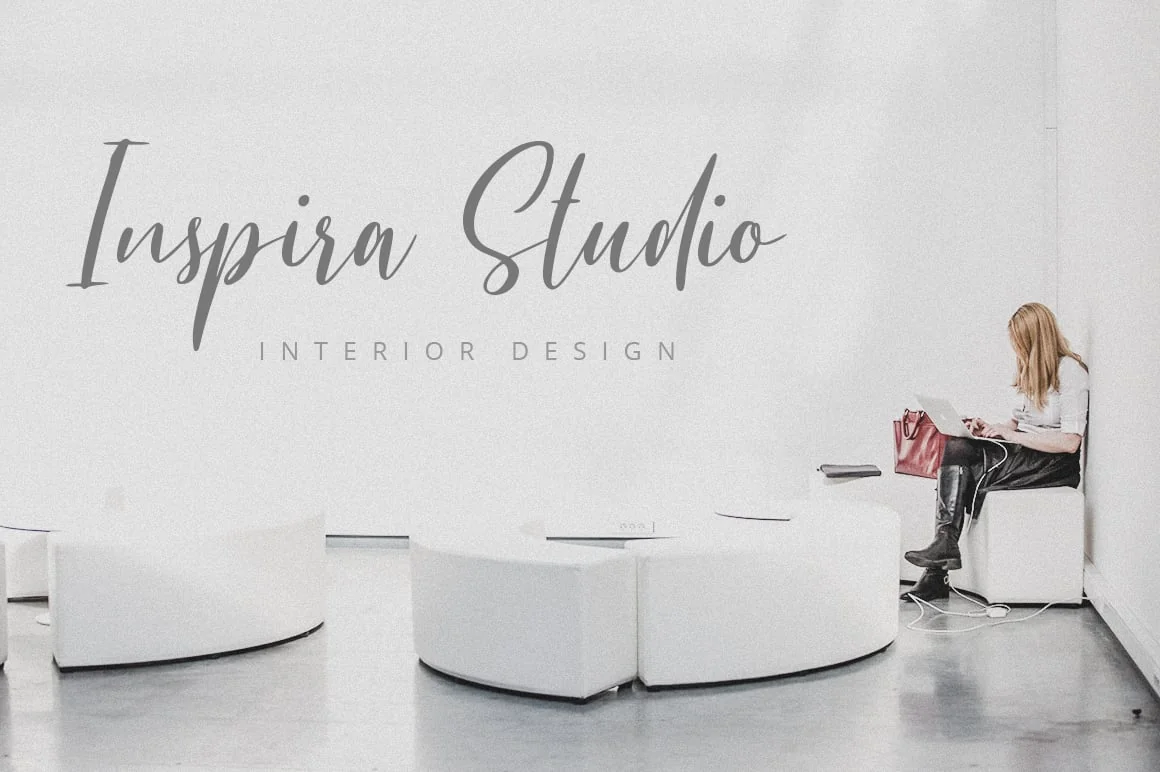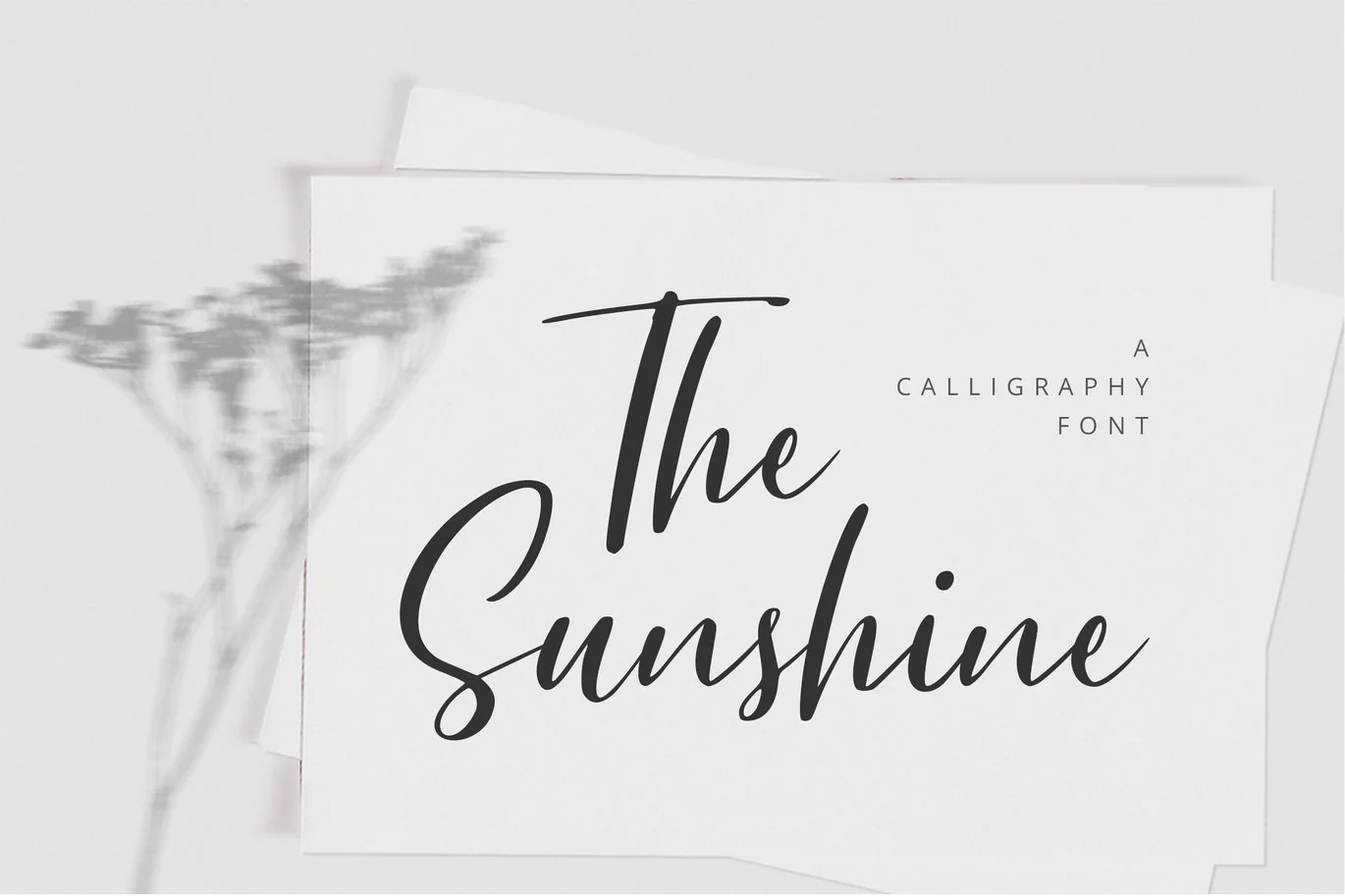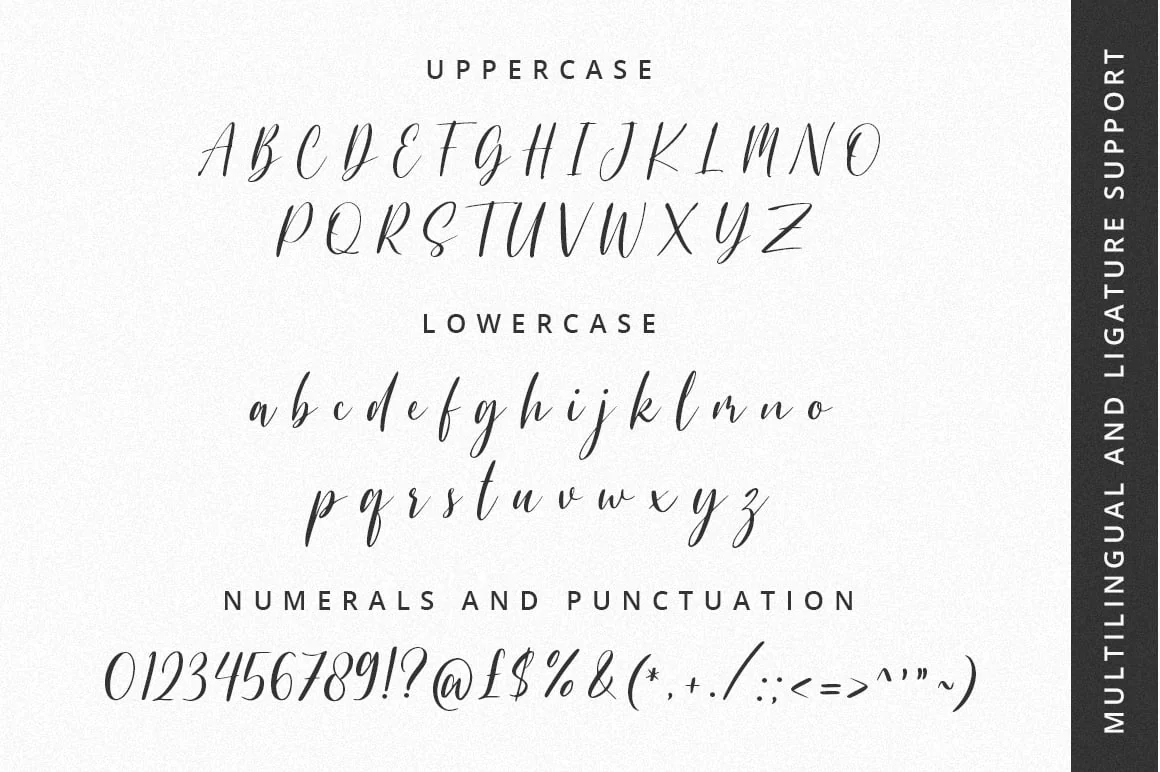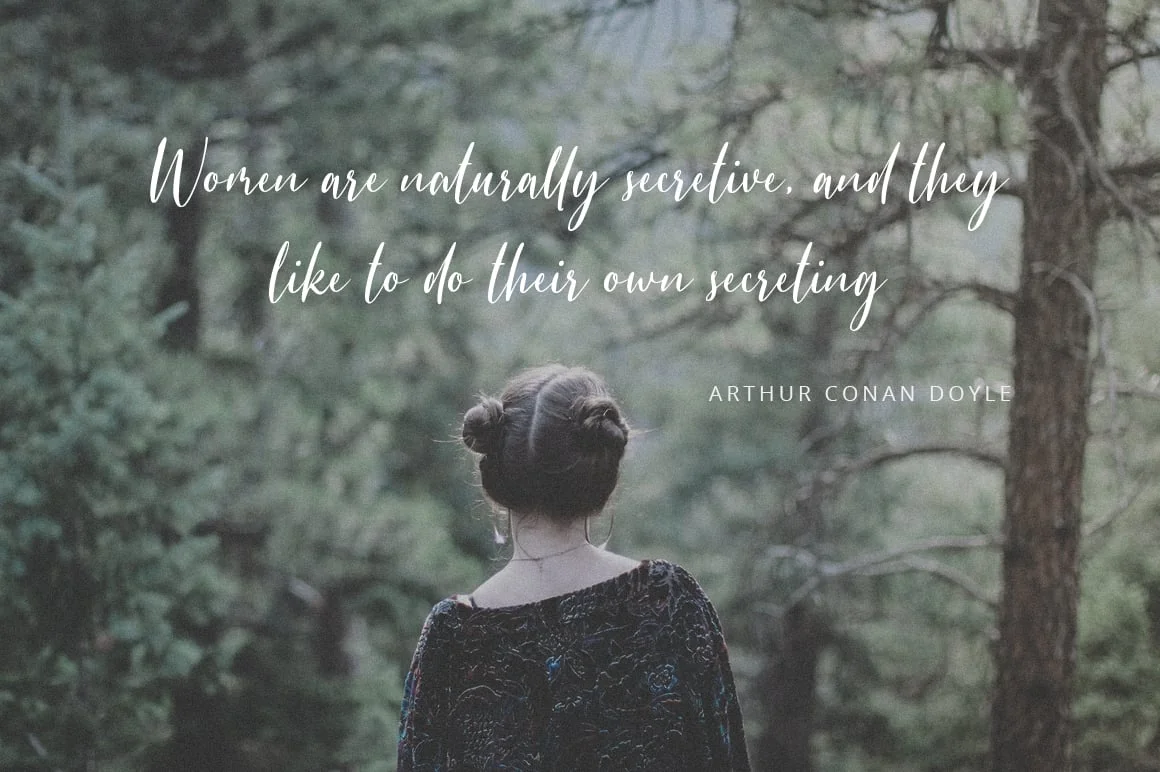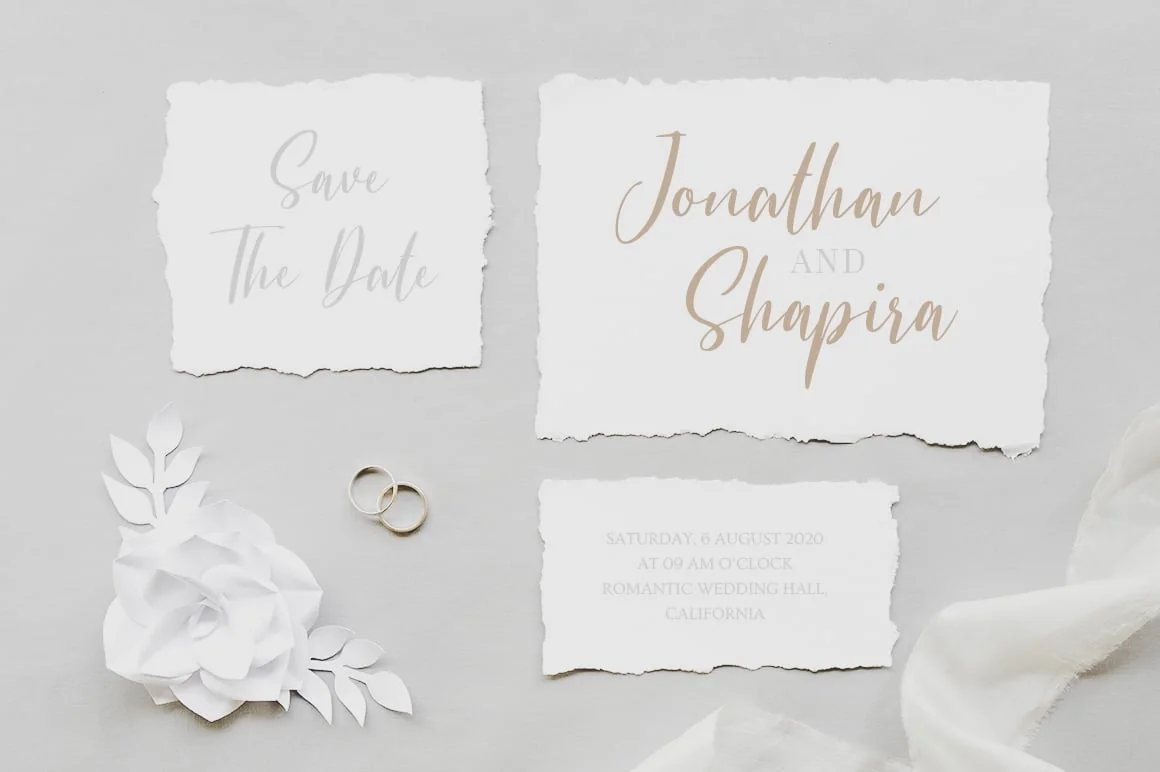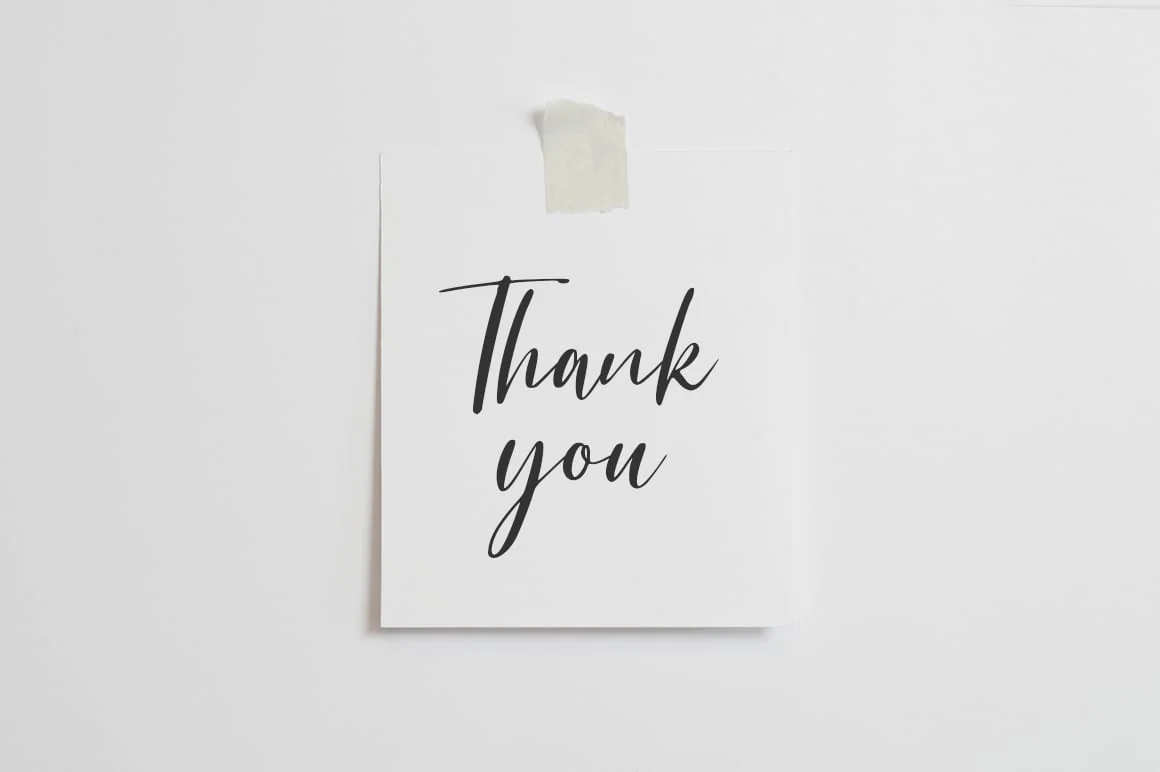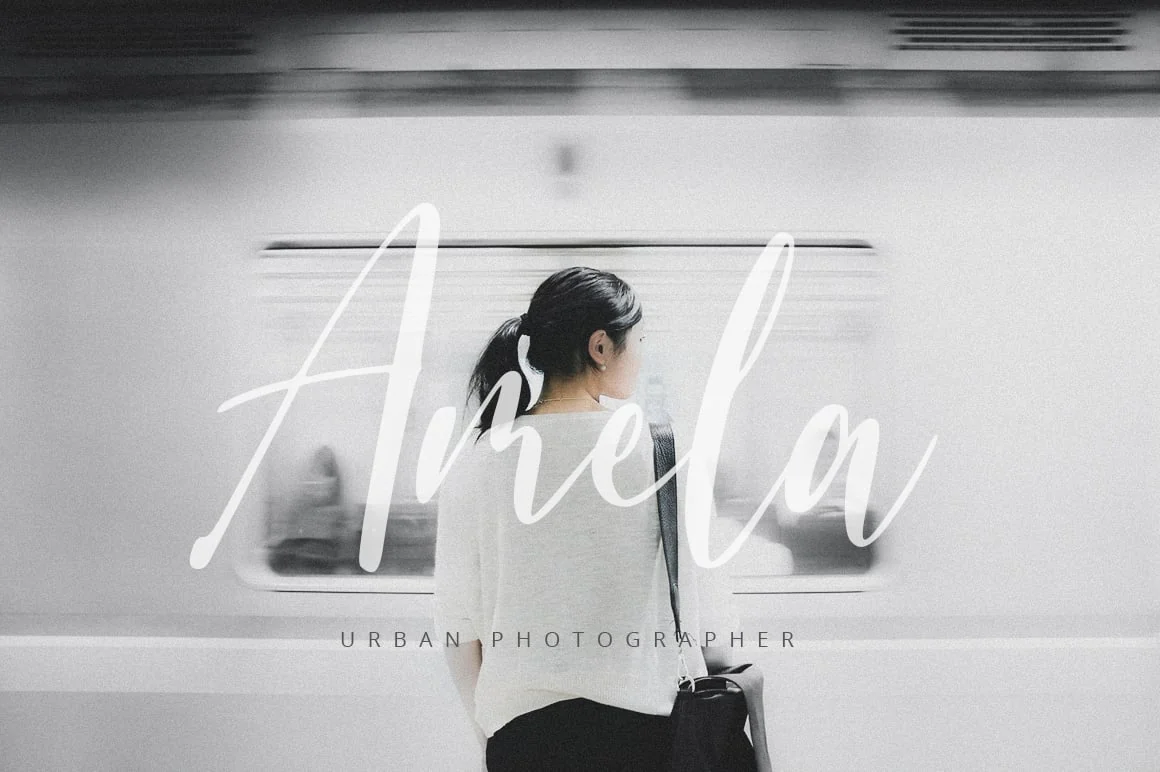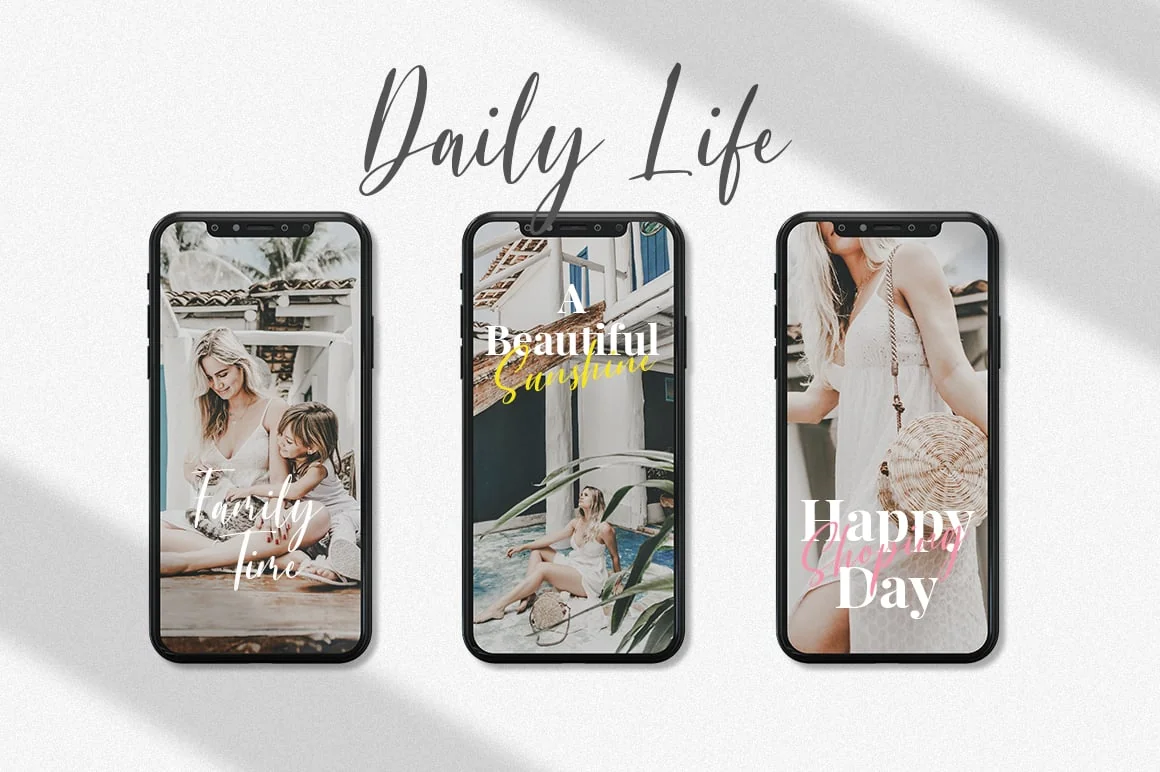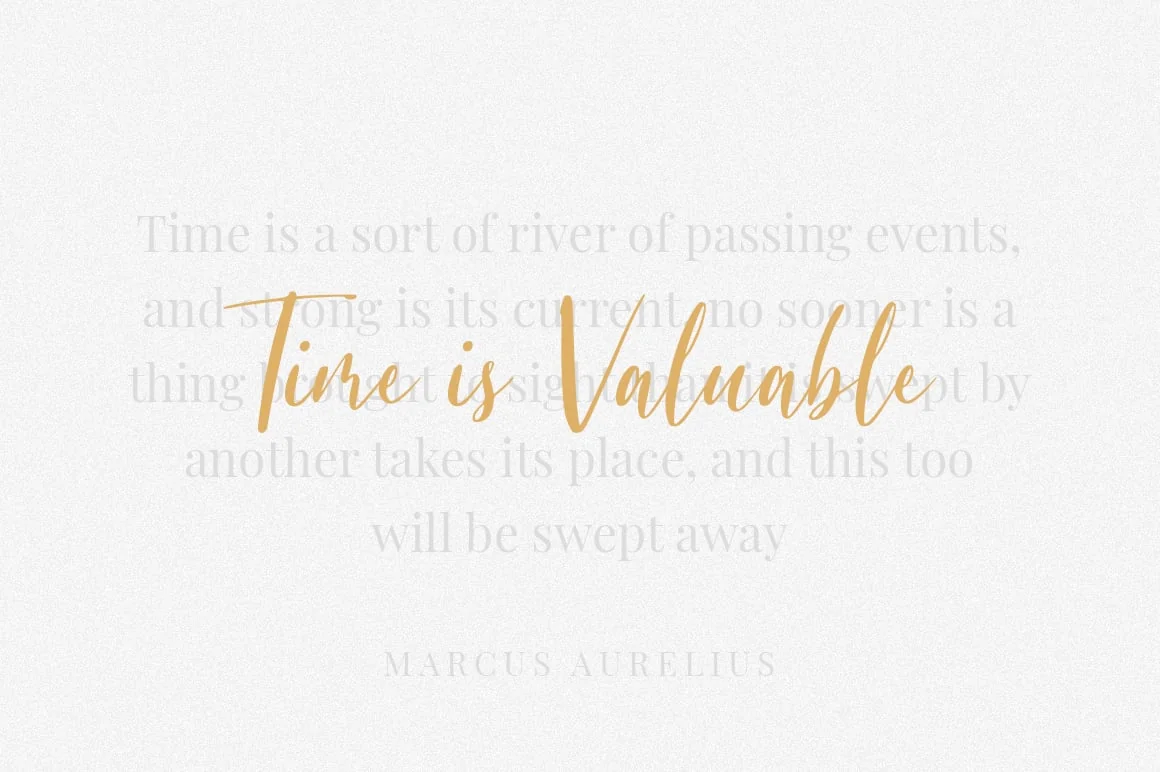
The Sunshine – Elegant Font
The Sunshine is an exquisite handwritten font, masterfully designed to become a true favorite. It maintains its classy calligraphic influences while feeling contemporary and fresh. Fall in love with it and bring your projects to the highest levels!
- Ligatures, Swash, Alternates
- Letters, Numbers, punctuation